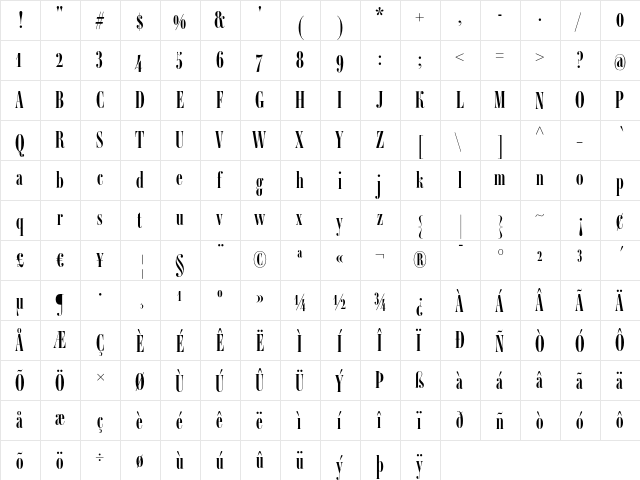
Ambroise Francois Demi
Design Context for Ambroise Francois Typeface
Ambroise Francois is a composed and adaptable typeface that performs quietly and consistently across a wide range of design contexts.
Pro Tip: Pair Ambroise Francois with a font of contrasting weight or personality to build a more expressive typographic hierarchy.